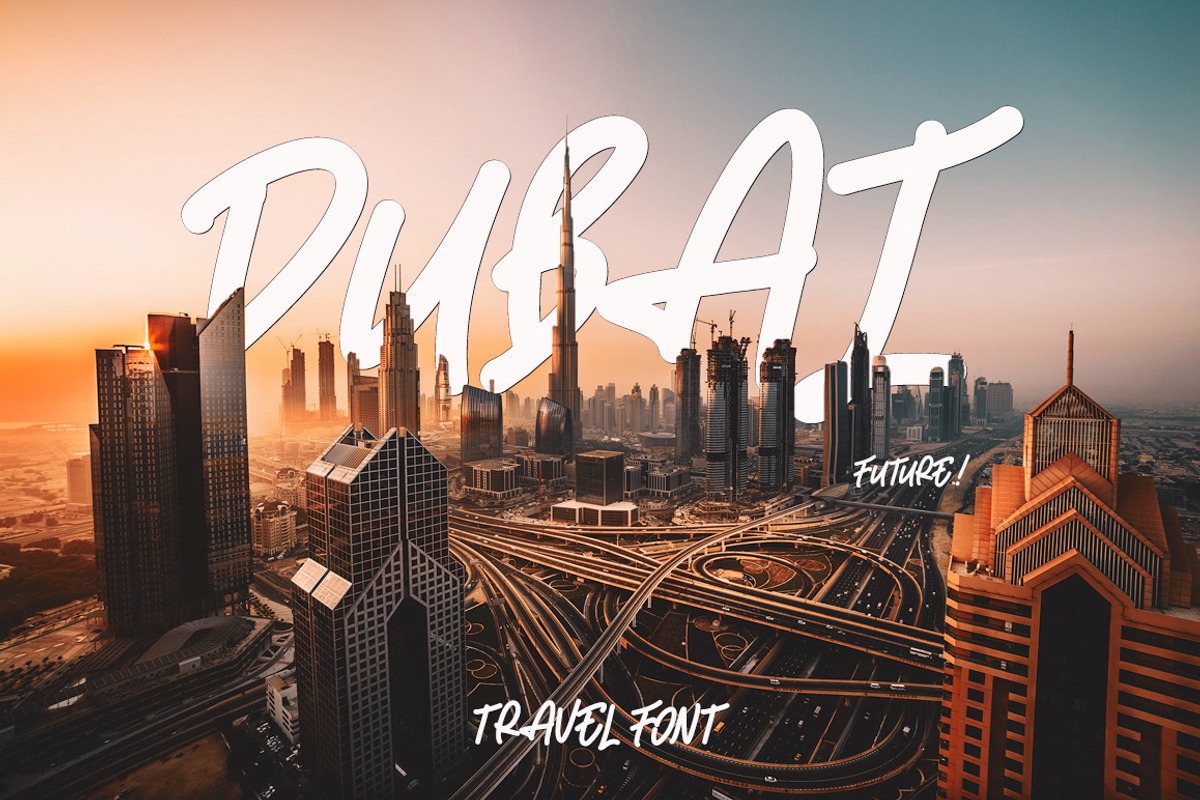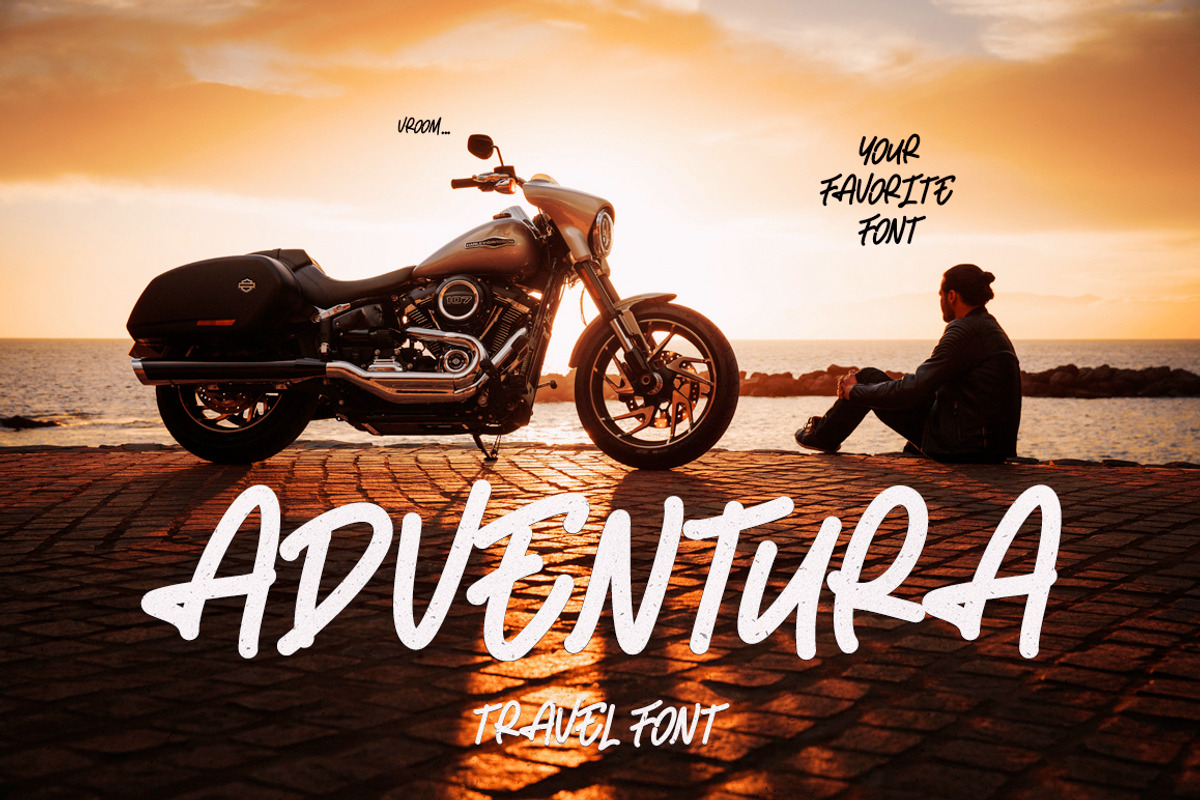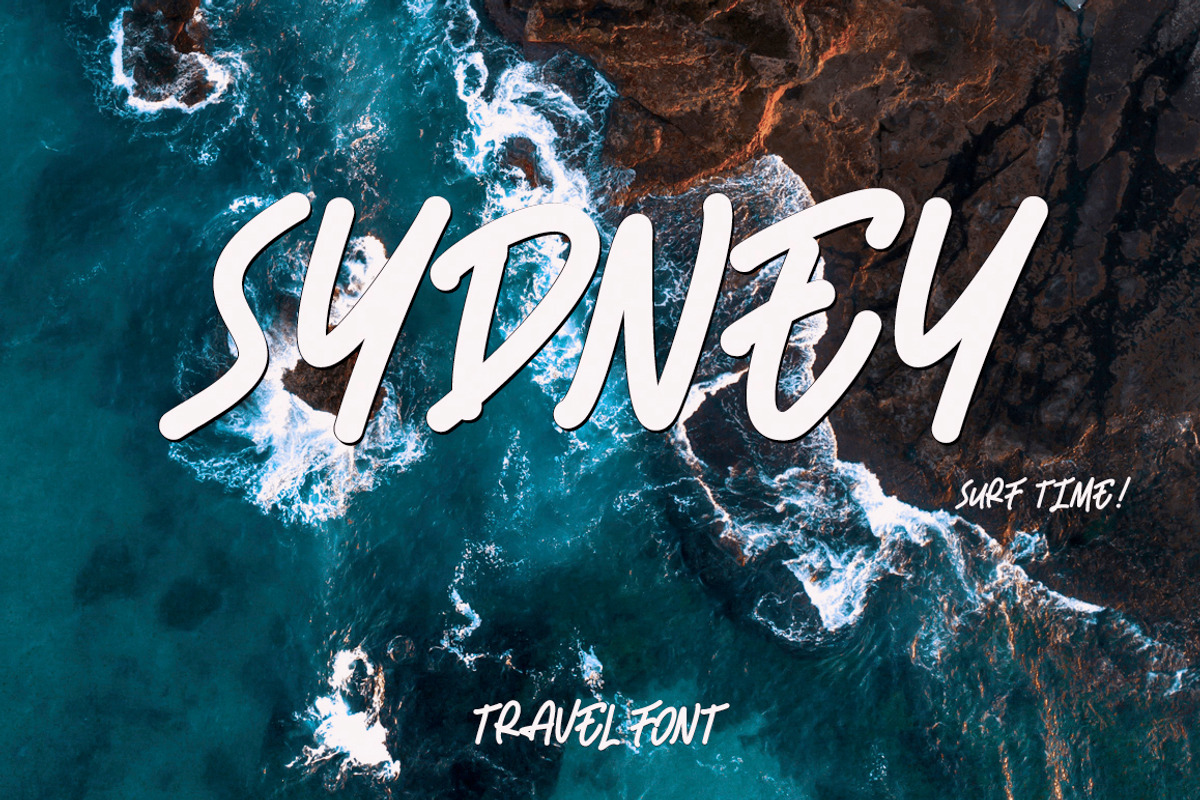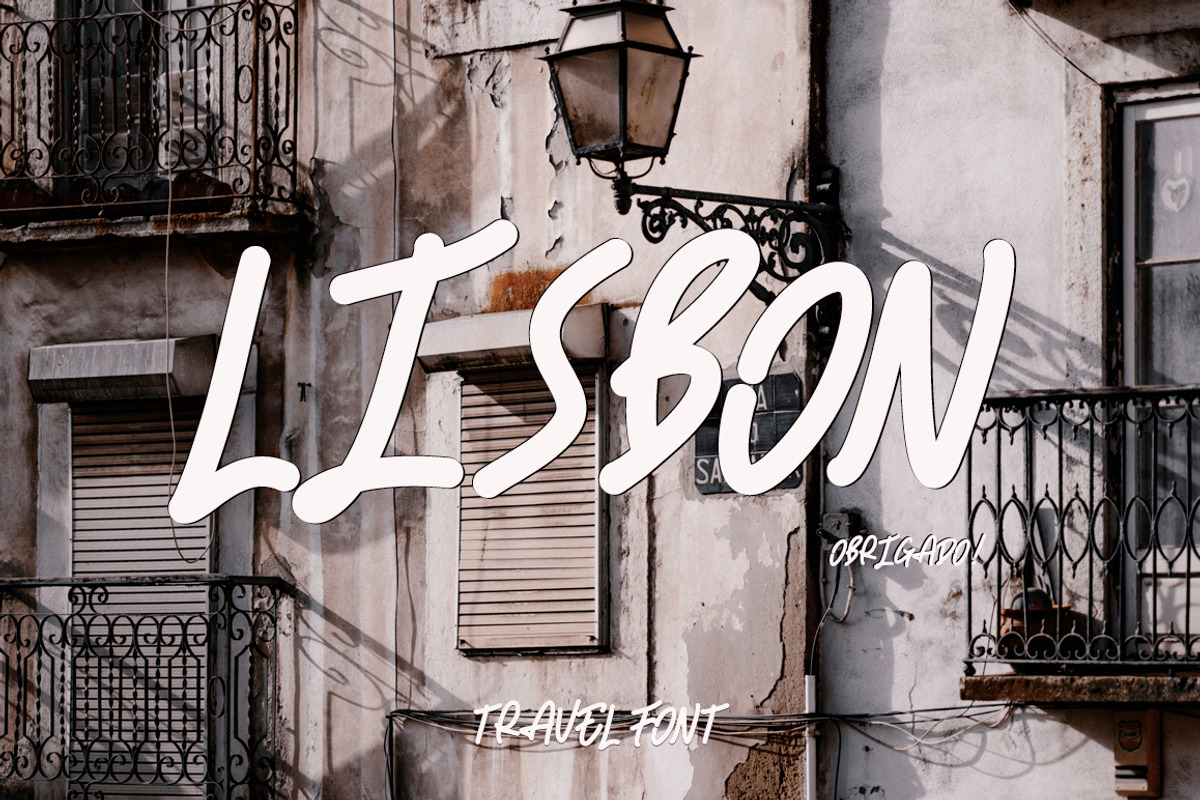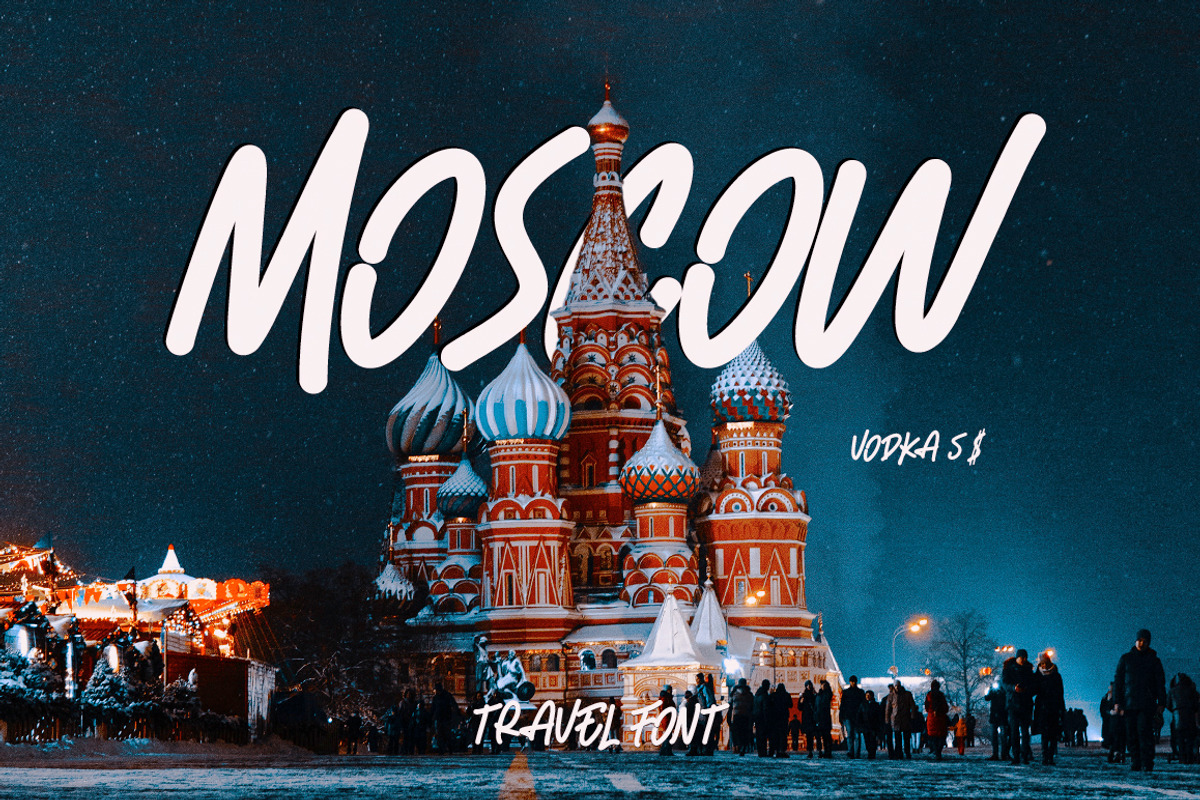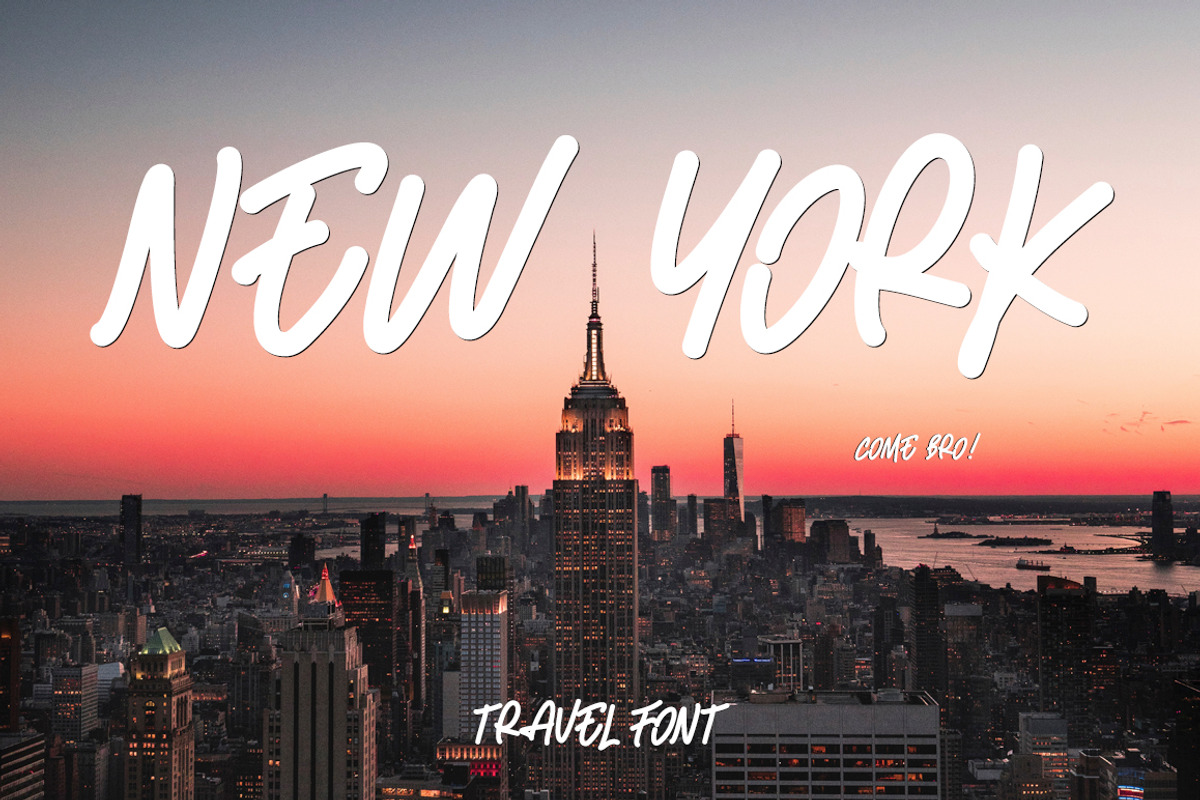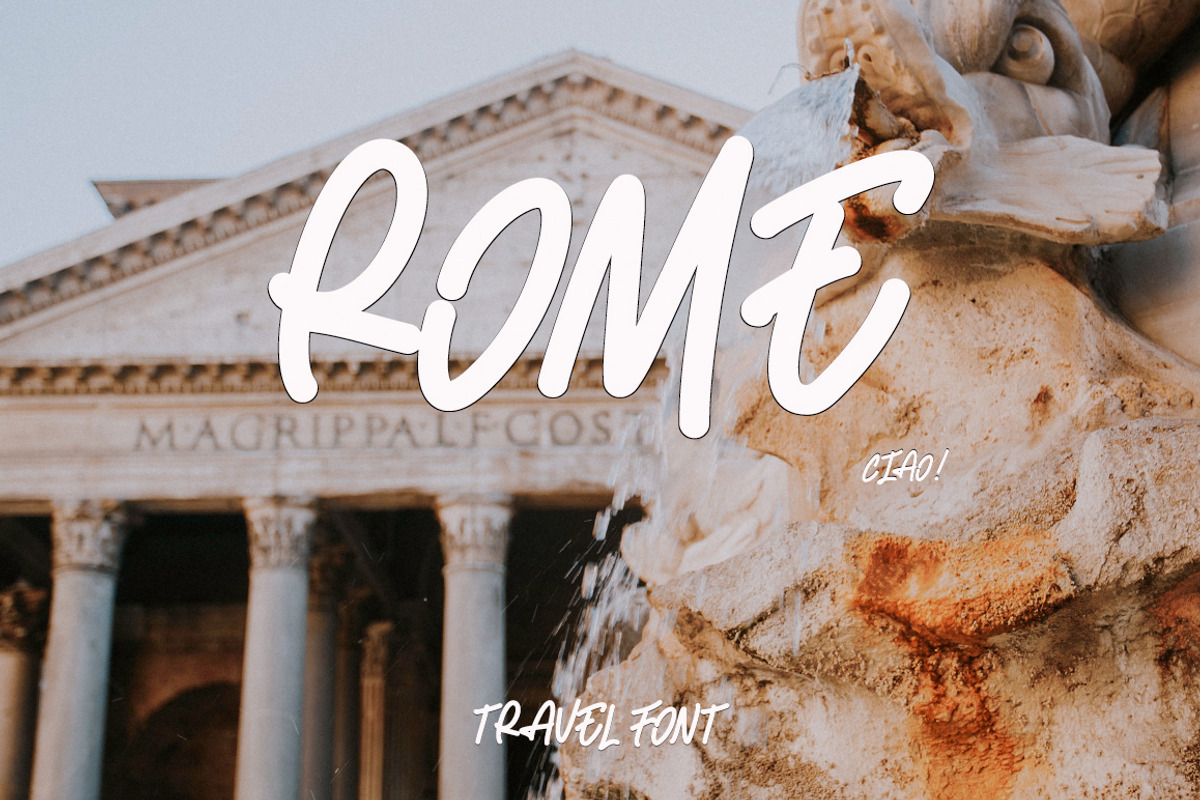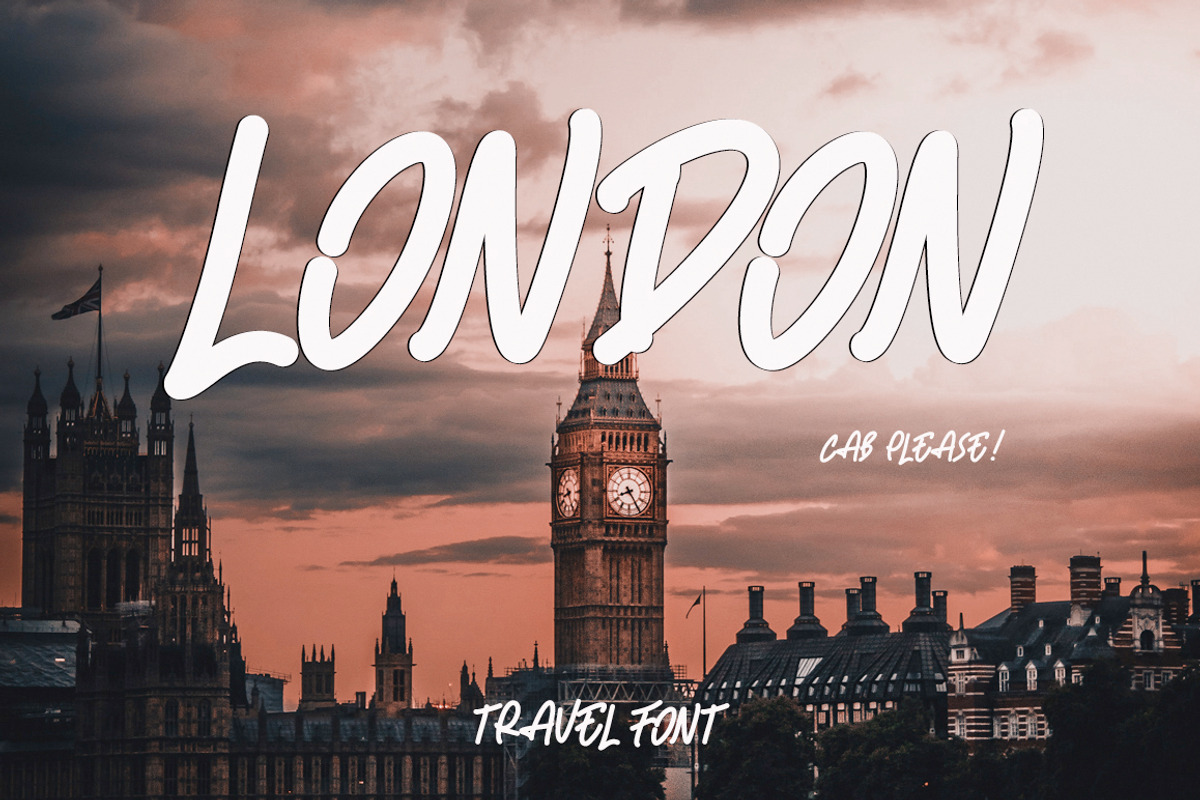
Adventura Handwritten Font
💢 Cool Monoline Script - ADVENTURA! 💢
👉🏻 This handwritten font is best weapon for travel photographers, filmmakers and designer who love travel and adventure vibes
The font is great for cover design, videos, publishing and editorial design! It is also perfect for retro, vintage logo designer since font provides unique letter forms!
Adventura Handwritten Font by n.A Studio fits naturally into Branding, posters, packaging, typography.